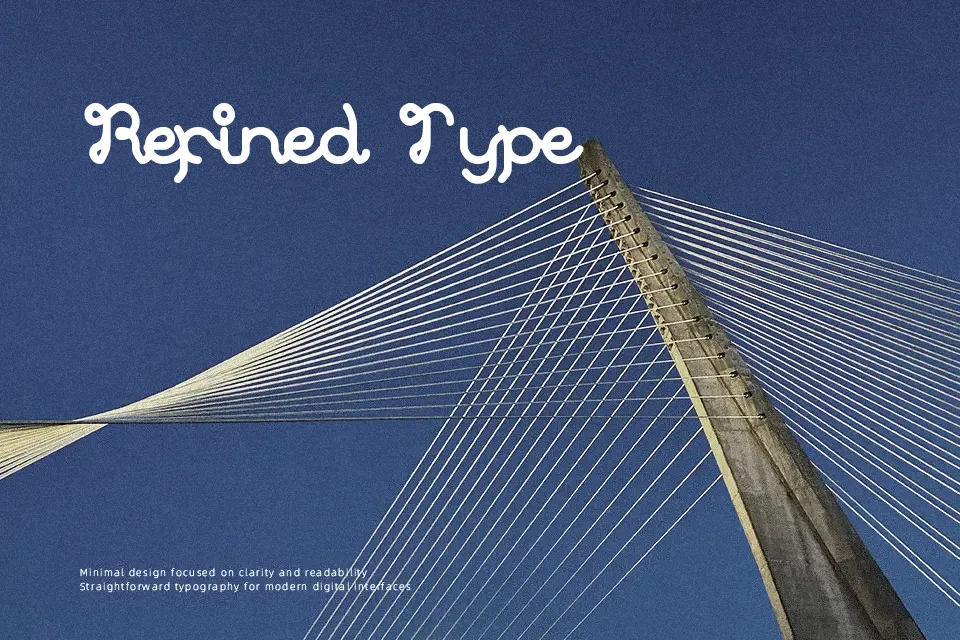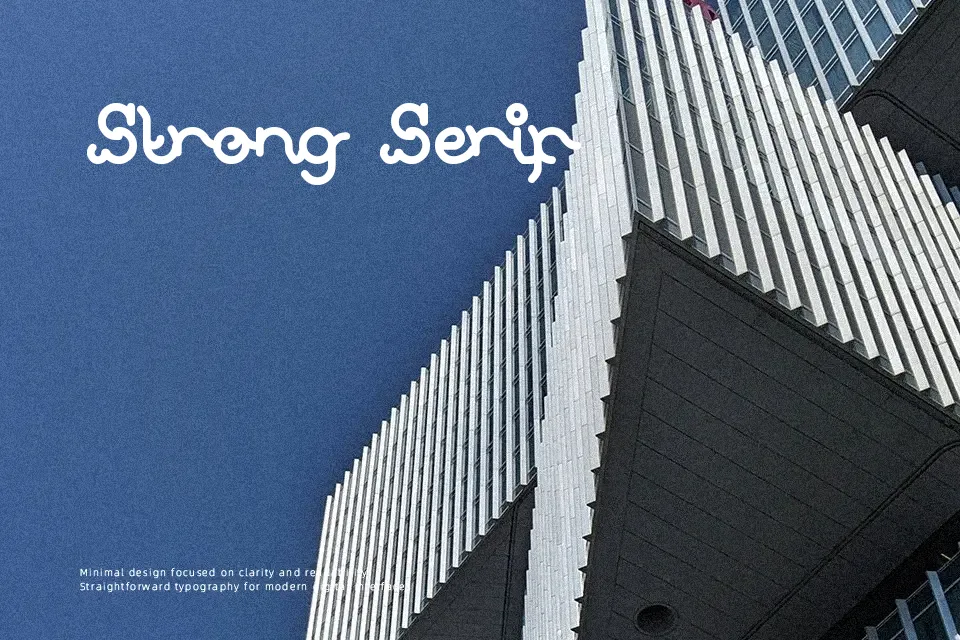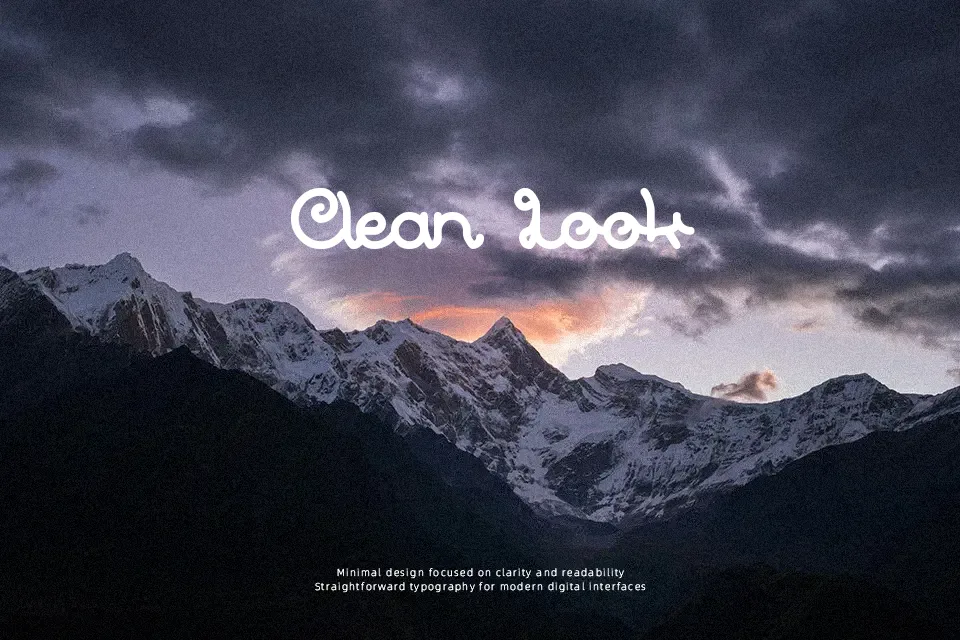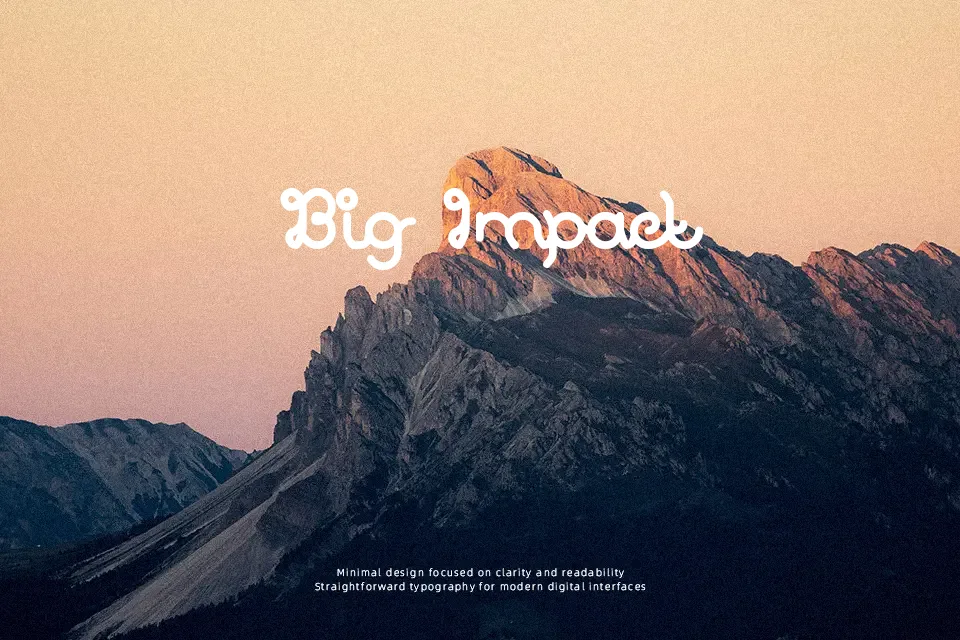
Celestial Love Font
Featuring prominent loops, swirling terminals, and low-contrast strokes, Celestial Love Font presents an overtly whimsical and decorative aesthetic across its character set. The typeface maintains consistent character heights and open spacing between glyphs, ensuring that individual ornamental letters remain distinct in short display phrases. Curved embellishments define each stroke, bringing a cheerful and affectionate tone to party banners, themed product packaging, and celebratory stationery. However, the heavy reliance on intricate curlicues noticeably impairs continuous reading comfort, making the design less suitable for multi-line paragraphs or small caption labels where the elaborate terminals quickly crowd together.
– romantic event invitations
– Valentine’s Day promotional posters
– celebratory greeting card titles
– boutique confectionery packaging
– multi-line editorial body copy
– corporate documentation and reports
– compact mobile interface labels
– dense technical tables
Perfect for headline, invitation, and packaging, with a cute and decorative style.